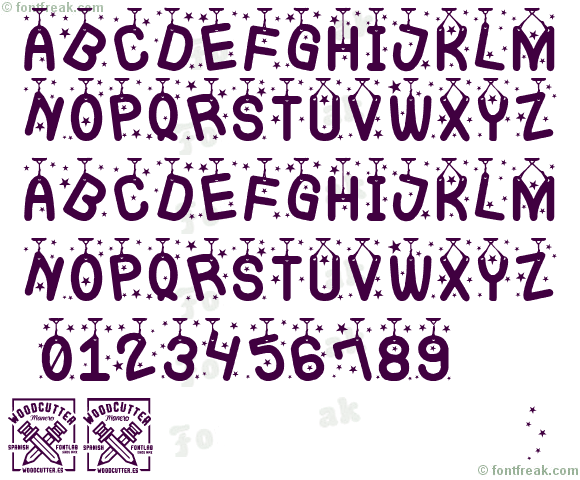
Hanging Party
About Hanging Party
The Hanging Party font by woodcutter Manero is a captivating display typeface that brings a playful and whimsical energy to any design project. This decorative font features a unique combination of bold, rounded letters adorned with festive elements, such as stars and hanging party motifs, that evoke a sense of celebration and joy. The stroke weight is consistent throughout, with a slight contrast that enhances visibility while maintaining a fun aesthetic. The spacing between characters is thoughtfully designed, allowing for a balanced appearance that is both engaging and easy to read.
This font is ideal for a variety of creative applications. It shines in contexts such as wedding invitations, where its festive character can complement the joyous occasion. Additionally, it works well for movie posters, especially for comedies or family-friendly films, adding a lighthearted touch that captures attention. Restaurant menus, particularly for establishments with a playful theme, can benefit from the lively appearance of Hanging Party, making dishes stand out. Content creators looking to add a touch of whimsy to their promotional materials will also find this font to be a perfect fit.
Targeting graphic designers, small business owners, and content creators, Hanging Party offers a refreshing alternative to conventional typefaces. Its freeware license makes it accessible for anyone looking to elevate their projects without breaking the bank. The distinctive style of the Hanging Party font free download not only sets it apart but also invites creativity and fun, making it an excellent choice for anyone seeking to make a memorable impression in their designs. With its unique flair, Hanging Party is sure to become a go-to typeface for all your festive and celebratory needs.